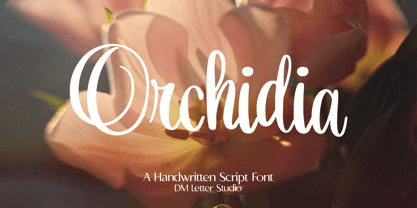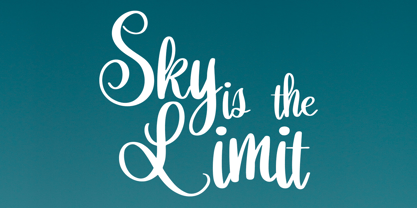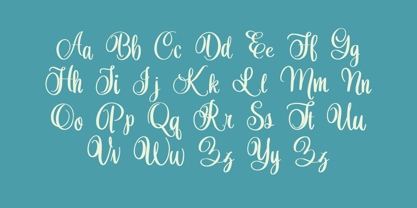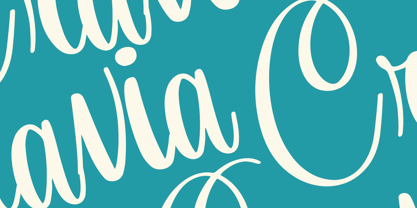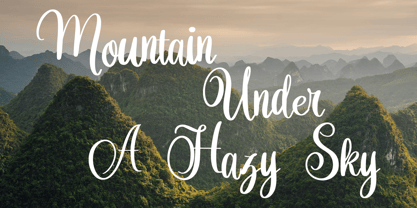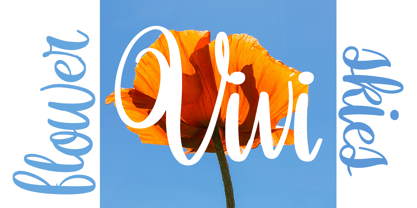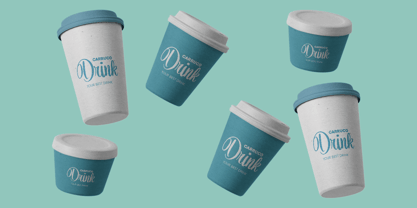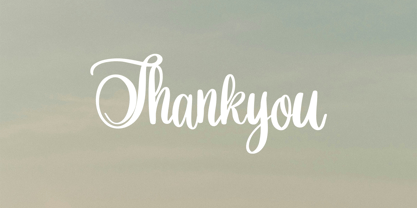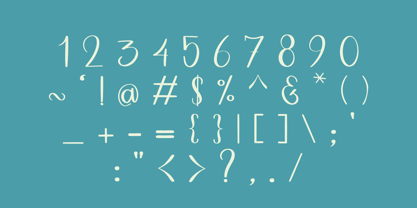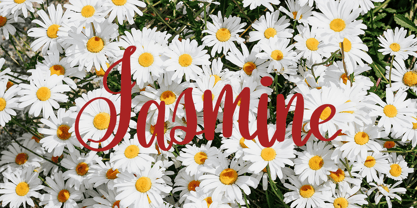
Orchidia
The Orchidia Font Family was designed by Dimas Prasetyo and published by DM Studio. Orchidia contains 1 styles. More about this family
Meet Orchidia, the Handwritten Script Font Orchidia is a graceful handwritten script font designed to feel elegant, romantic, and naturally flowing. Its strokes are smooth and refined, with a gentle rhythm that looks like real handwriting, but polished enough for premium branding. Use this font for wedding invites, signature logos, beauty packaging, social media quotes, boutique branding, product labels, and feminine design projects. As a result, your typography feels classy, soft, and instantly elevated.   Why Orchidia sells First, Orchidia installs quickly and works smoothly in Canva, Photoshop, and Illustrator. Next, the clean script structure stays readable while still looking luxurious. Then your designs come together faster because the font adds an instant “signature” vibe without extra styling. Moreover, handwritten script fonts remain a top choice for weddings, beauty brands, and lifestyle creators. Therefore, this font fits perfectly into modern script font collections.   Fast layouts with the Orchidia Font Start with names, short headlines, or elegant quote lines. After that, adjust letter spacing slightly if you want a more airy, premium look. Because the strokes are flowing, keep background elements minimal so the script stays the hero. In addition, pair it with a simple serif or clean sans serif for body text and details. Finally, try palettes like black and ivory, blush and gold, sage and cream, or navy and champagne for timeless elegance.   Creative uses and quick wins Wedding invitations and save-the-dates Beauty branding and boutique logo designs Product labels, packaging, and thank-you cards Instagram quotes and feminine content templates What you get Uppercase and lowercase letters Numbers and basic punctuation Design tips for Orchidia Use Orchidia for logos, titles, and highlight text rather than long paragraphs. Also, increase line spacing for multi-line quotes to keep them readable. For print, test small sizes to ensure the thinnest strokes remain clear. For digital, add a soft shadow or subtle texture for depth without losing elegance. Finally, combine it with minimal frames, floral elements, or clean layout grids for a premium finish.